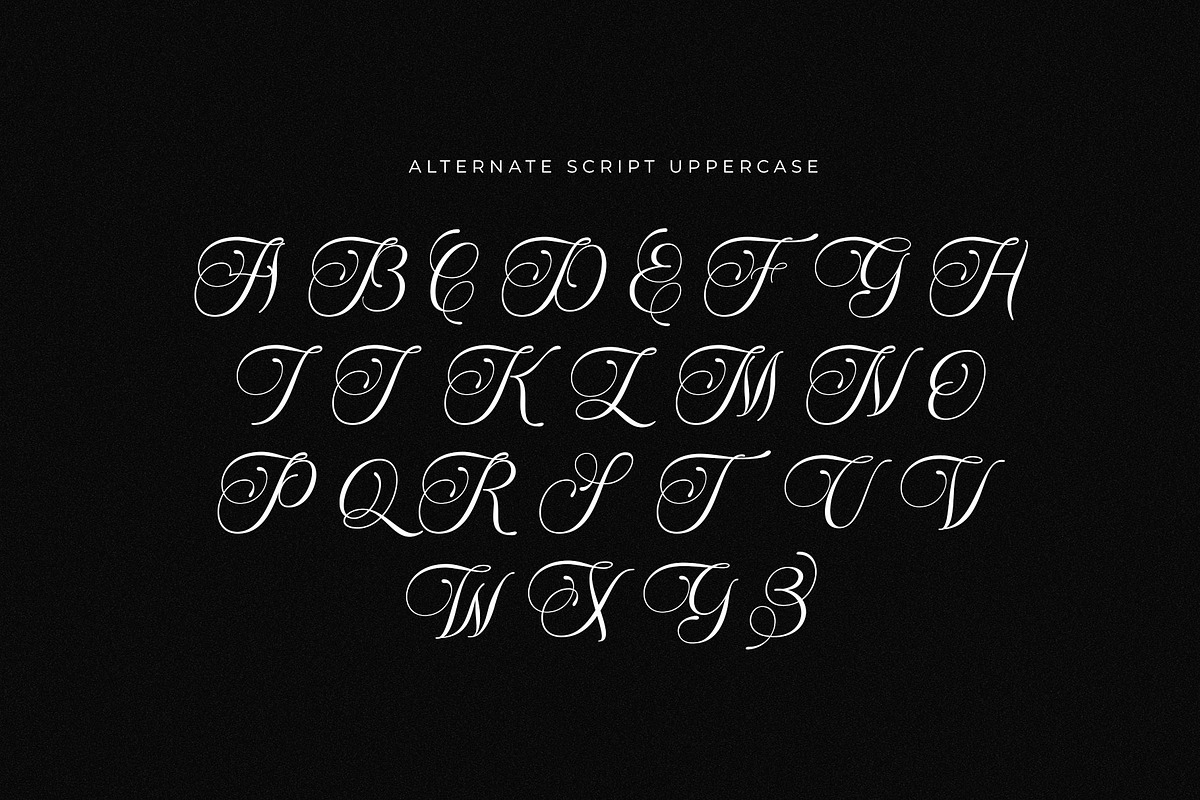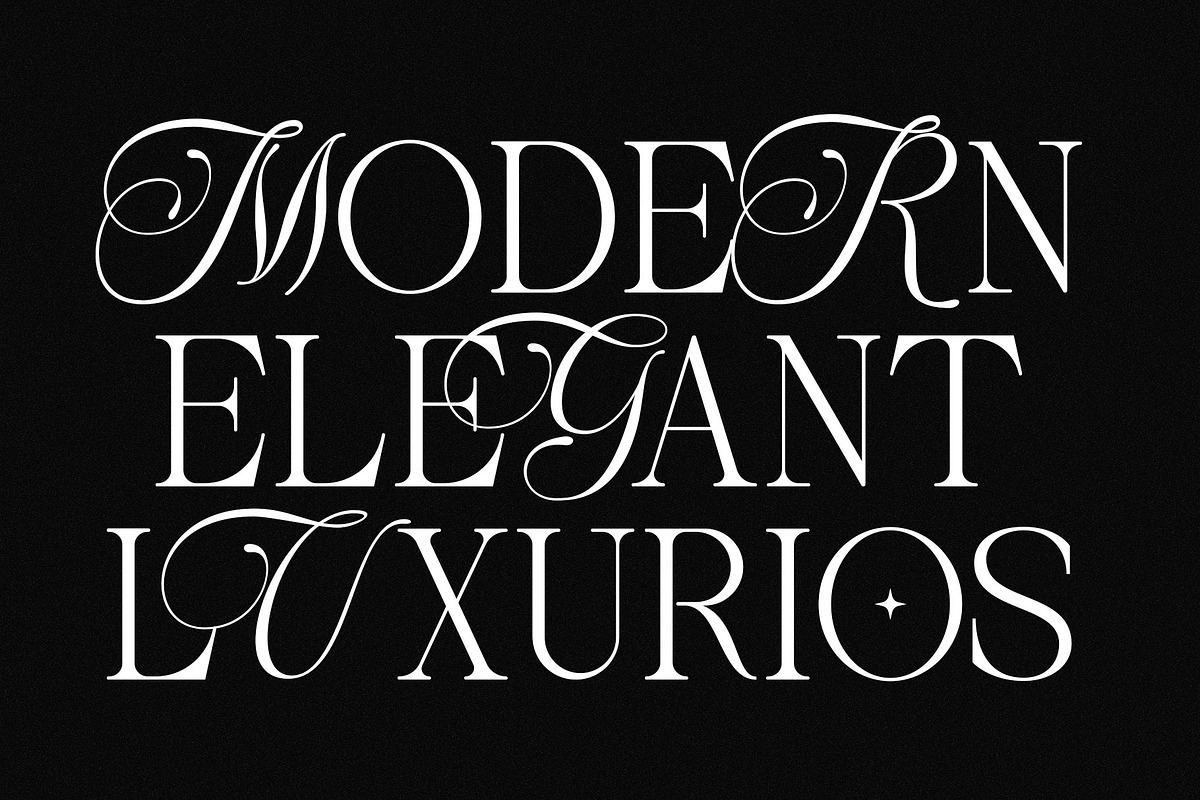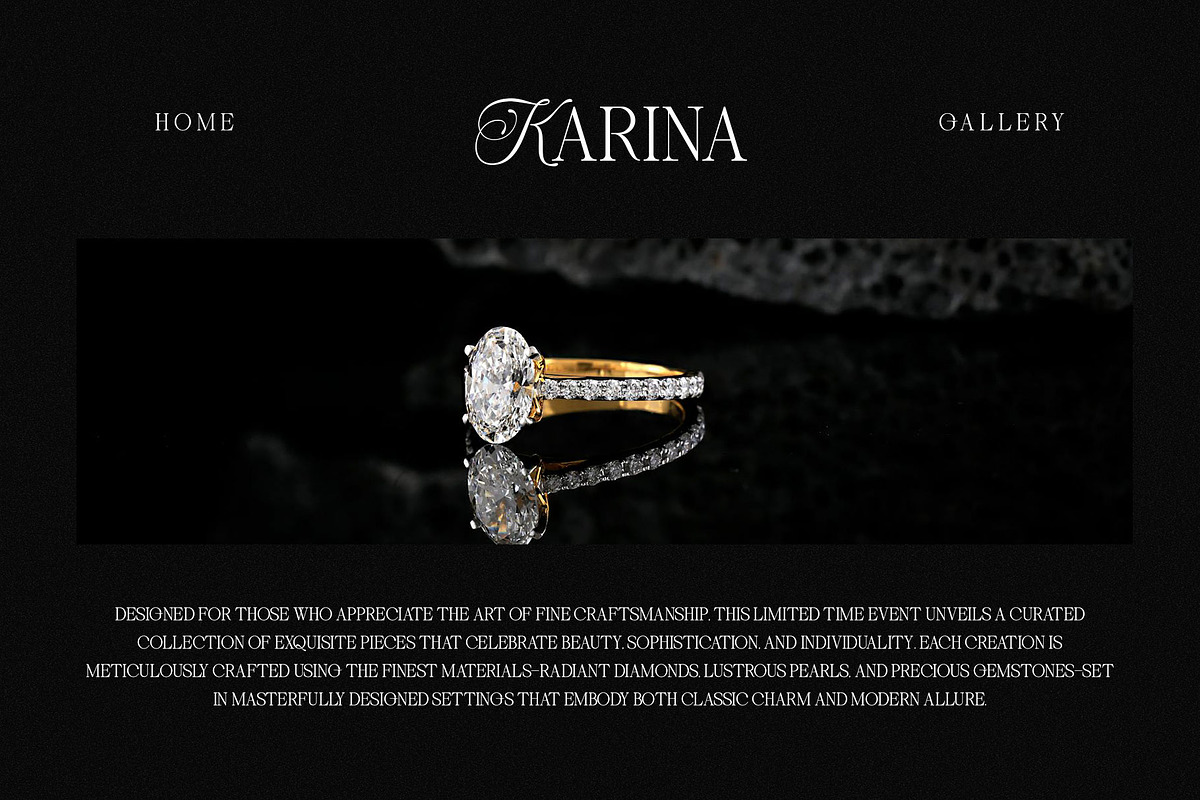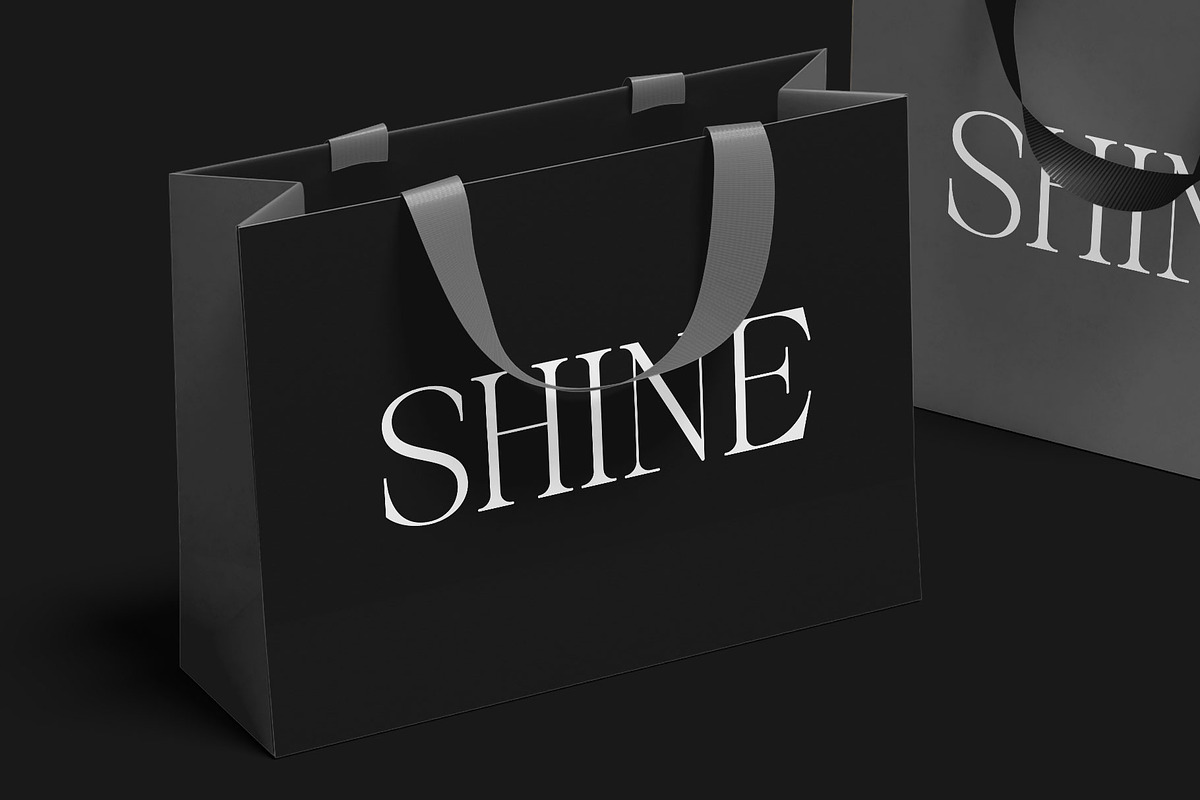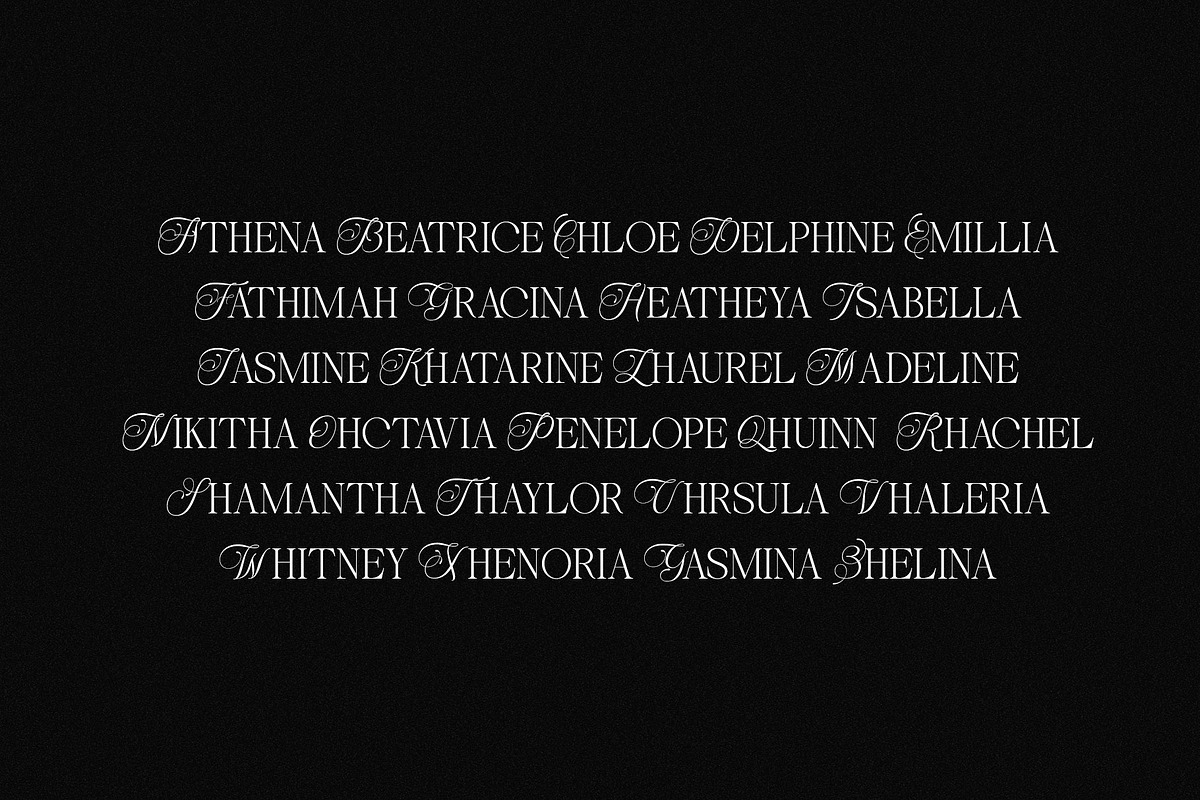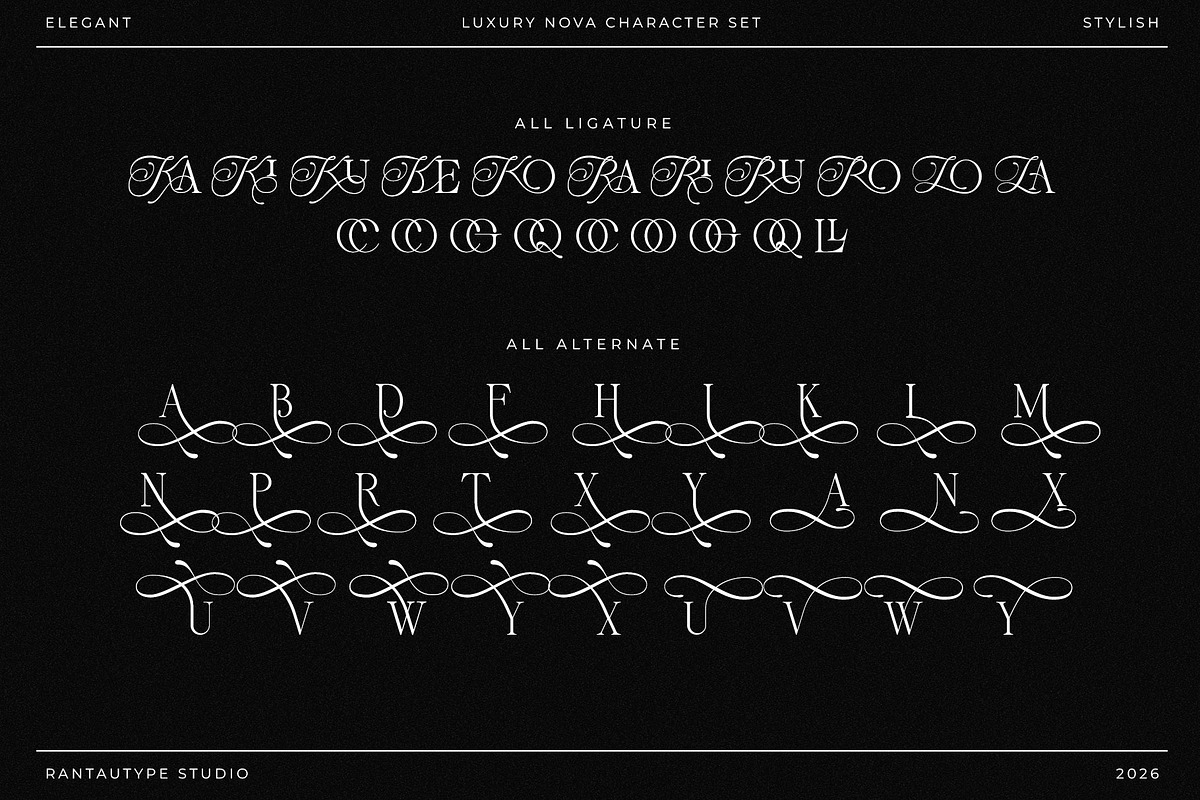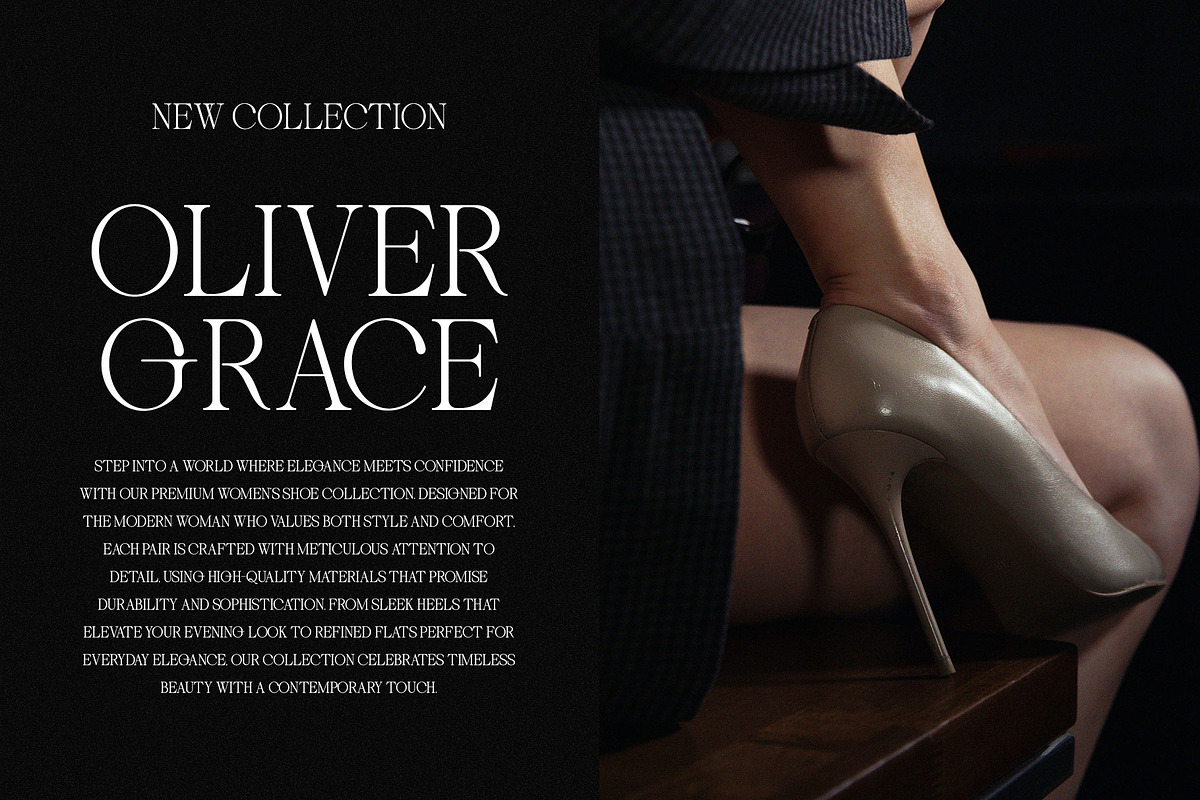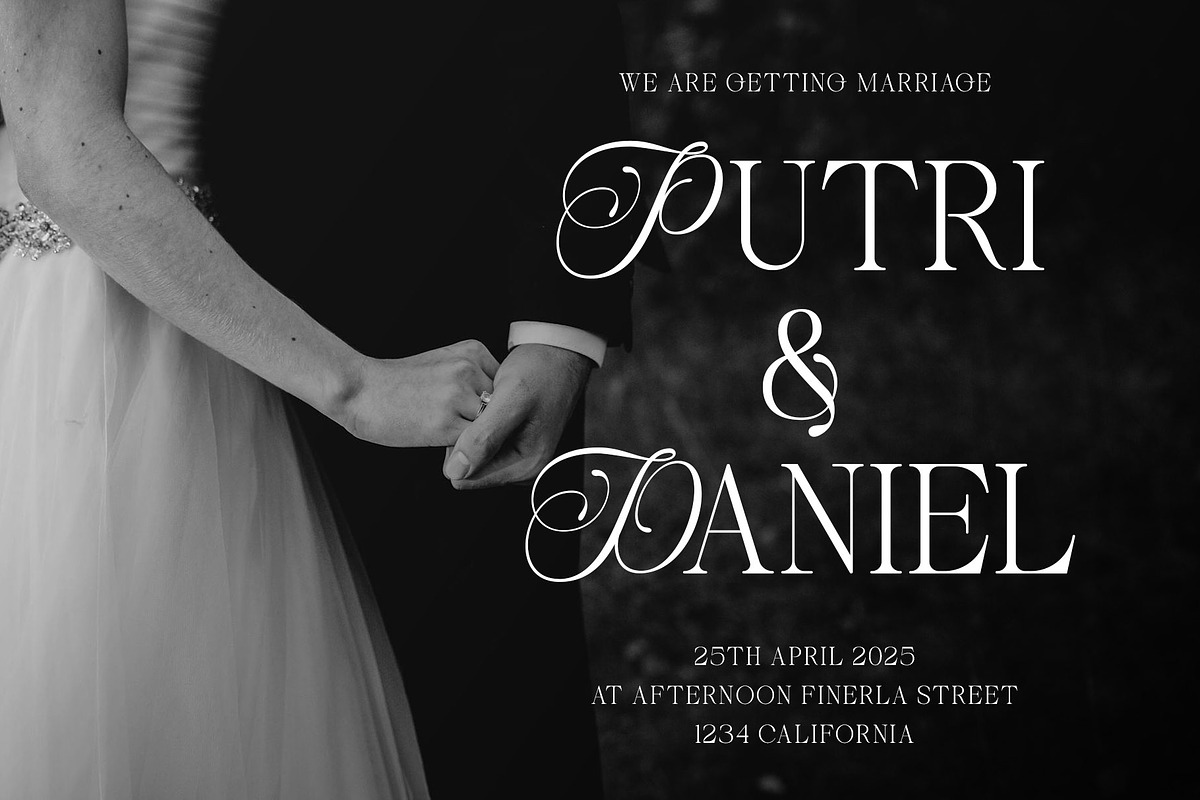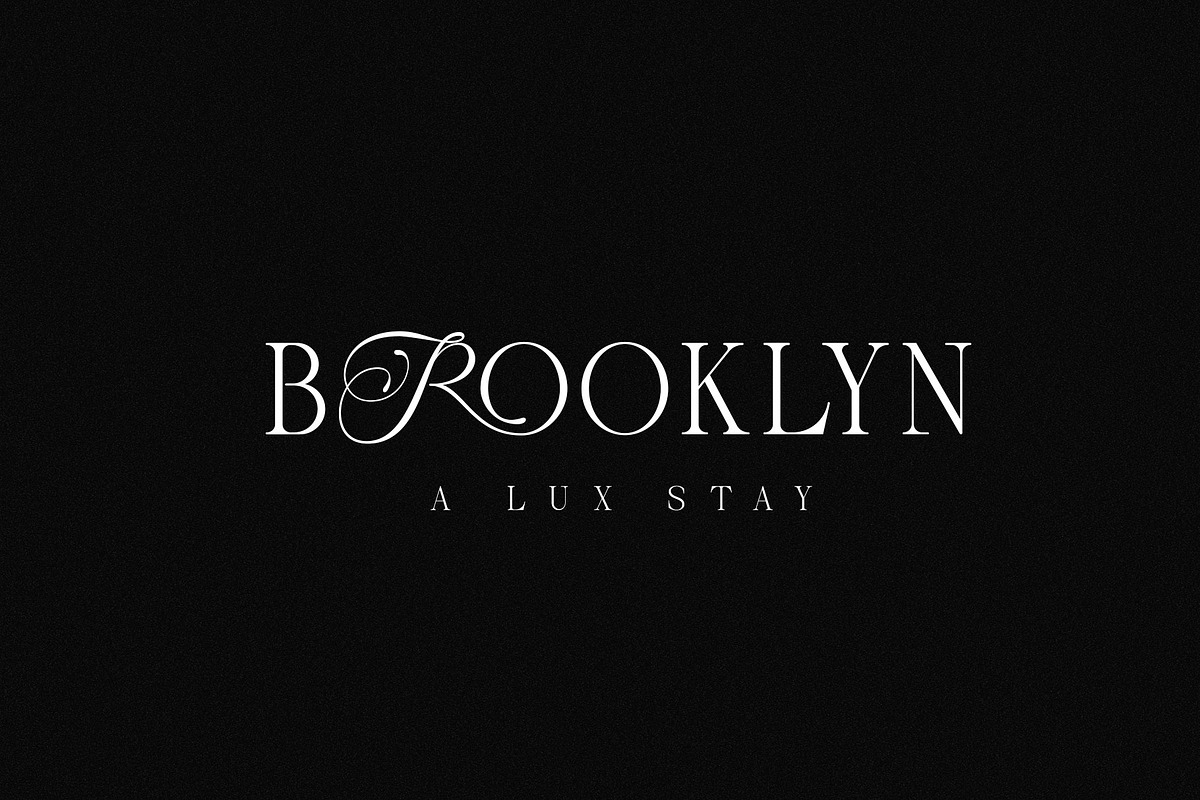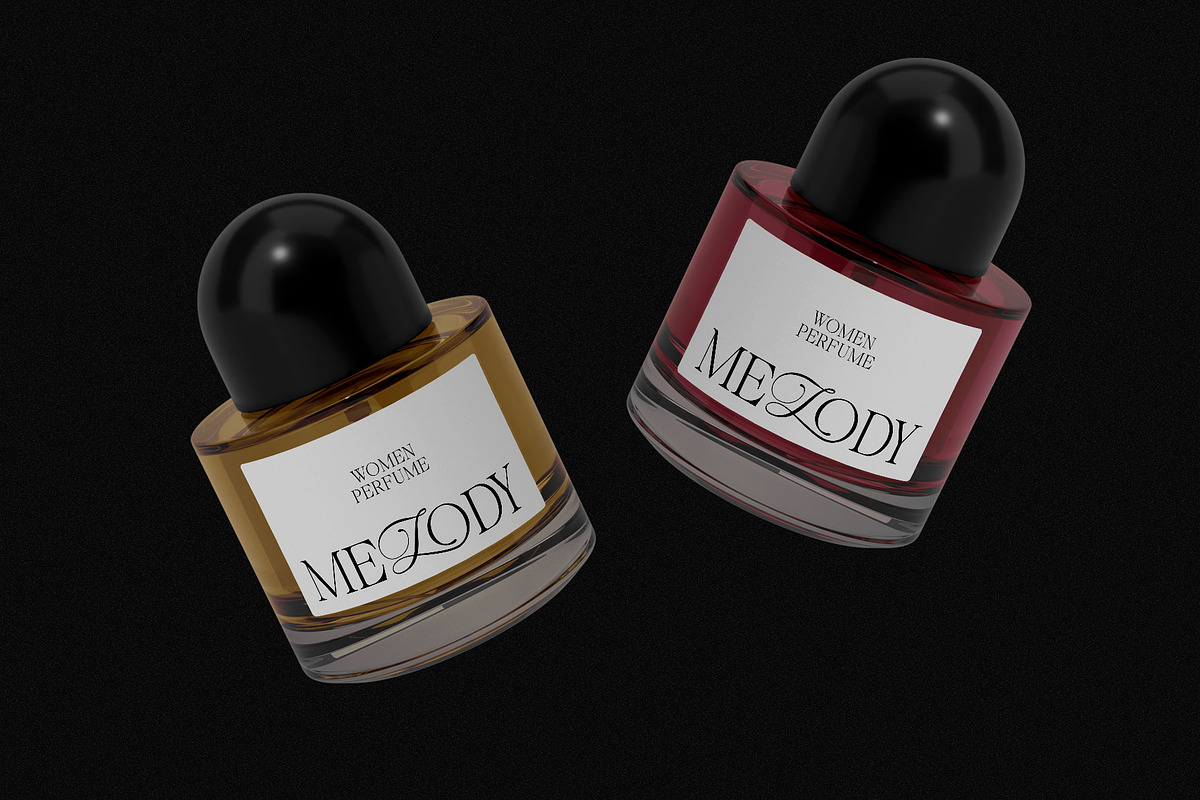
Luxury Nova a Elegant Serif Font
Luxury Nova is a serif font with graceful character made by rantautype studio. Luxury nova come with stylish alternate you can mix to create awesome design. Ronedia is a perfectly choice for any creative endeavor, creating, modern, lifestyle design such as logotype, title, cover, branding, invitations, wedding designs, display and magazine, social media posts, advertisements, printed quotes, product packaging, corporate brand, product designs, labels, photography, watermarks, special events and any other project with elegant touch.